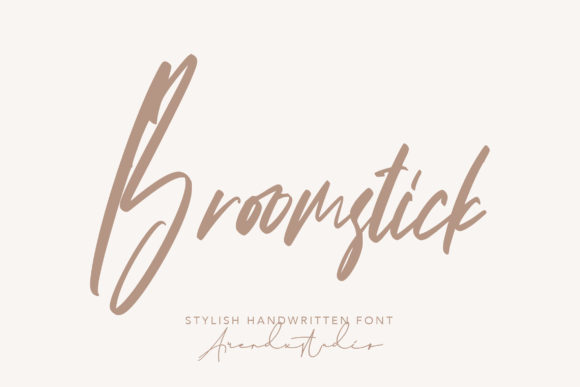
The Magical World of Broomstick Font: A Designer’s Delight
I’ll never forget the time I was working on a project for a client who wanted a whimsical, handmade feel to their branding. I spent hours scouring the internet for the perfect font, but nothing seemed quite right. That was until I stumbled upon Broomstick Font. It was like magic! ✨ The unique, handwritten style instantly captured the essence of what my client was looking for, and I knew I had found the perfect fit.
An Honest Review of Broomstick Font
- ✨ Unique and Versatile: Broomstick Font is an incredibly versatile font that can be used for a wide range of design projects, from crafting and digital designing to presentations and greeting card making.
- ✅ Ease of Use: The font is easy to read and works well in both digital and print formats.
- 💫 Whimsical Style: The handwritten style of Broomstick Font adds a touch of whimsy and personality to any design.
While Broomstick Font is an amazing font, there are a few things to keep in mind. ⚠️ Some users have noted that the font can be a bit tricky to use at very small sizes, and it may not be the best choice for body text. Additionally, 🤔 the font’s unique style may not be suitable for every design project, so it’s essential to consider the overall aesthetic you’re trying to achieve.
The Story Behind Broomstick Font
Broomstick Font was designed with the intention of creating a unique, handwritten font that would add a touch of magic to any design. The designer wanted to create a font that would evoke the feeling of a whimsical, fantastical world, and Broomstick Font certainly delivers. ✨
| Font Name | Broomstick Font |
| Author | Arendxstudio |
Q: What is Broomstick Font?
A: Broomstick Font is a unique, handwritten font designed for use in a wide range of design projects.
Q: Can I use Broomstick Font in my digital designs?
A: Yes, Broomstick Font works well in digital designs and can be used in a variety of formats, including web design, social media graphics, and more.
Q: Is Broomstick Font easy to read?
A: Yes, Broomstick Font is generally easy to read, but may be more suitable for display text rather than body text.